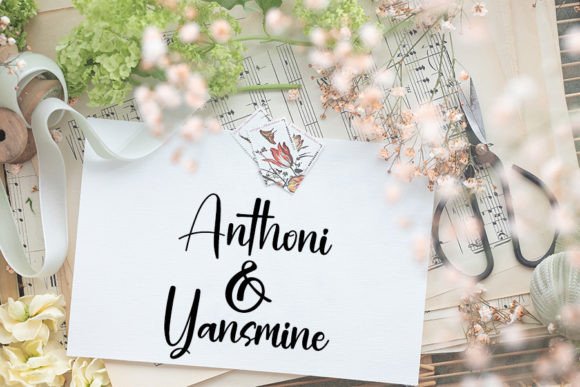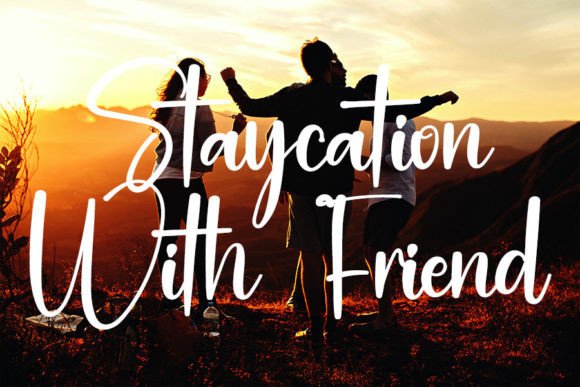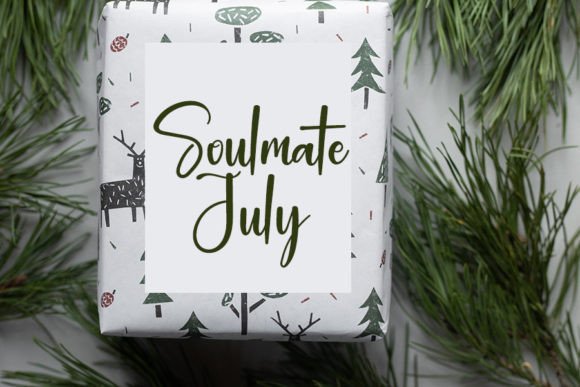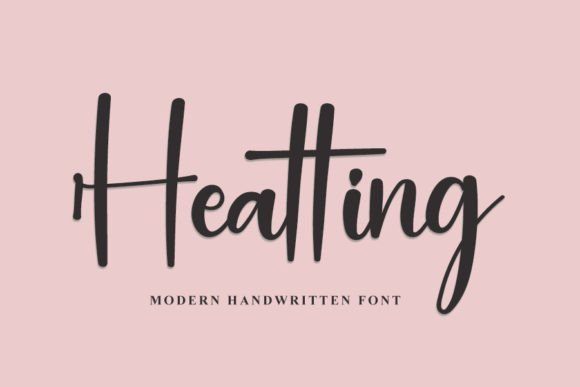
Introduction to Heatting Font
Heatting is a trendy handwritten font with a contemporary atmosphere and impeccable form, inspired by a timeless classic calligraphy.
It will add elegance and class to any of your design projects This font can be used to write various kinds of products according to the aspect of each need.
Key Features of Heatting Font